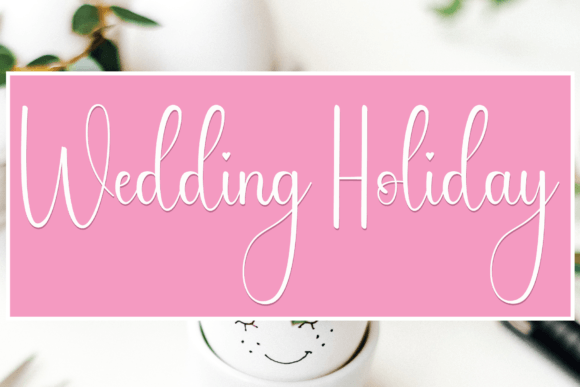
Introducing Wedding Holiday Font - the best font for Instagram decals! Created by the talented Balak Bendol, this script font is the perfect addition to your font collection. Its simplicity and friendliness make it an excellent choice for a wide range of projects.
Whether you're working on a digital design project, crafting beautiful greeting cards, or preparing a presentation, Wedding Holiday Font will elevate your work to the next level. This font's handwritten style adds a personal touch to your work, making it more memorable and unique.
With Wedding Holiday Font, you can create beautiful and eye-catching designs that are sure to capture your audience's attention. Its elegant and stylish appearance will help your message stand out and make a lasting impression.
What makes Wedding Holiday Font truly exceptional is its versatility. It can be used for a variety of projects, from wedding invitations to social media graphics. This font is perfect for creating Instagram decals that will instantly grab your followers' attention.
Overall, Wedding Holiday Font is a must-have for anyone who wants to take their design game to the next level. Its unique and captivating style, combined with its versatility, make it the perfect addition to any font collection. So why wait? Download Wedding Holiday Font today and start creating stunning designs that will leave a lasting impression!